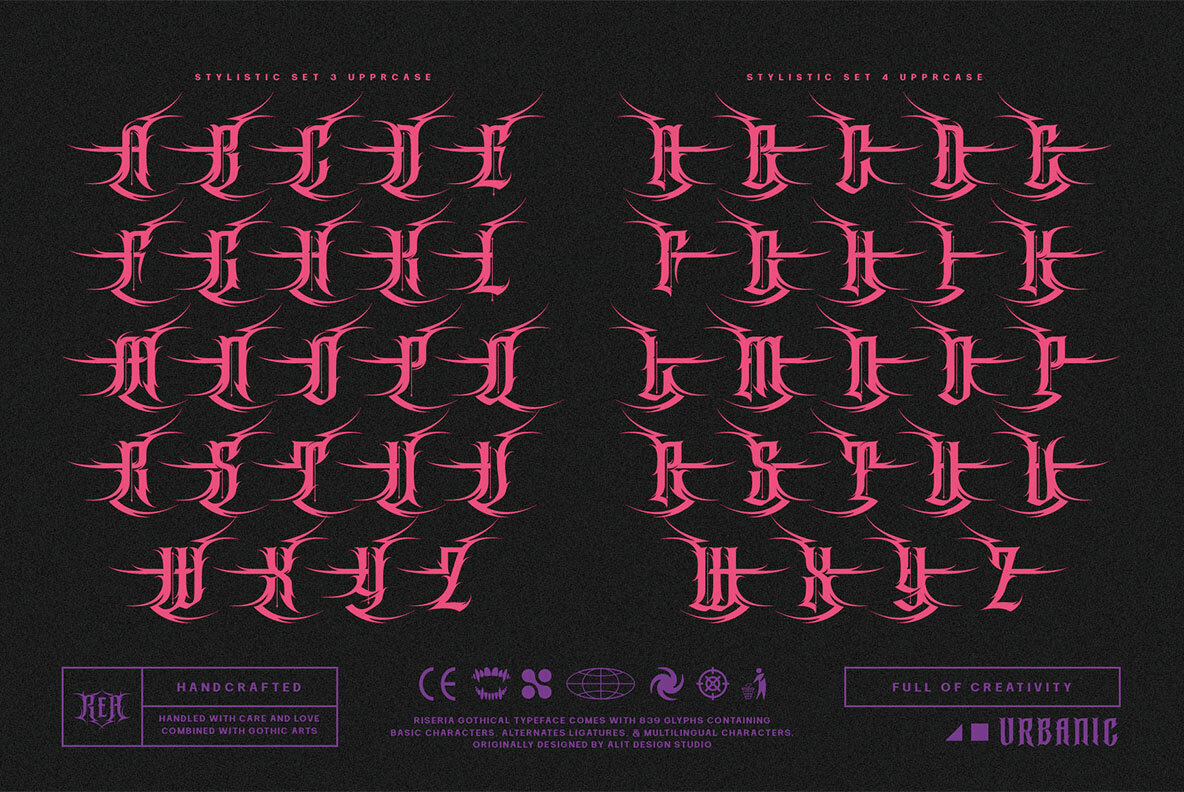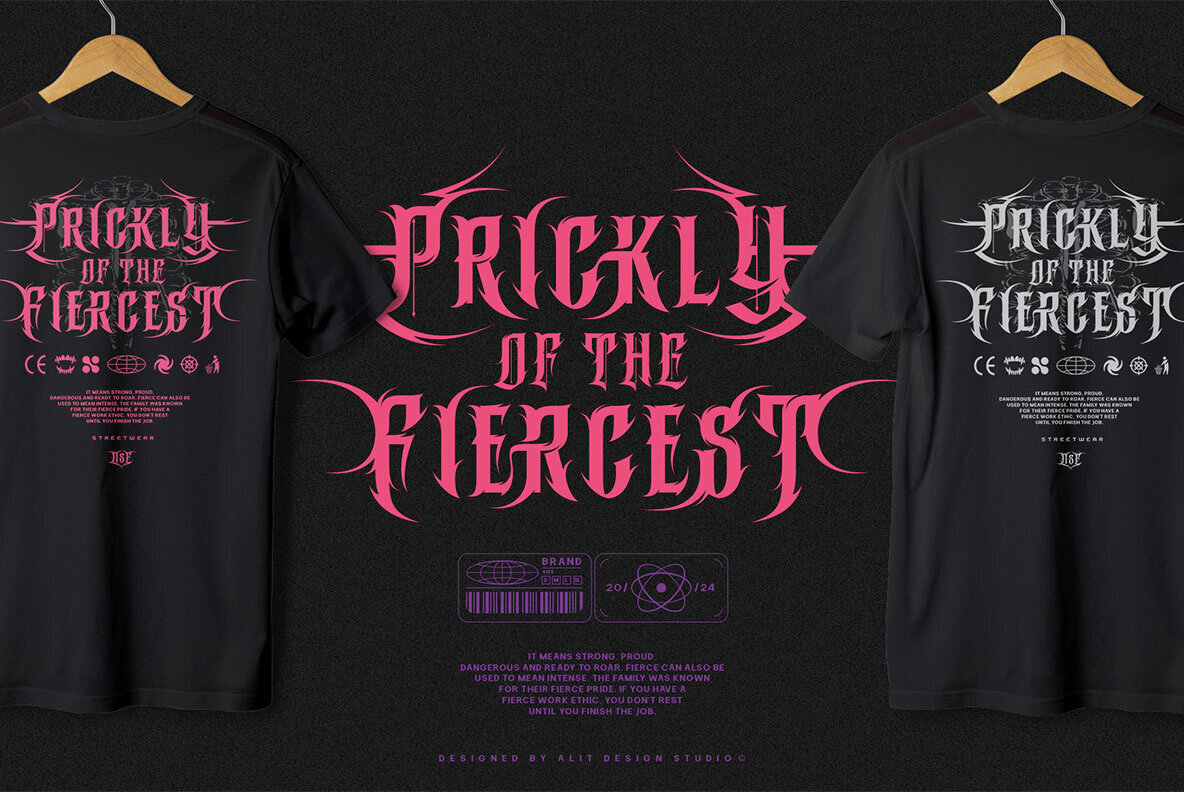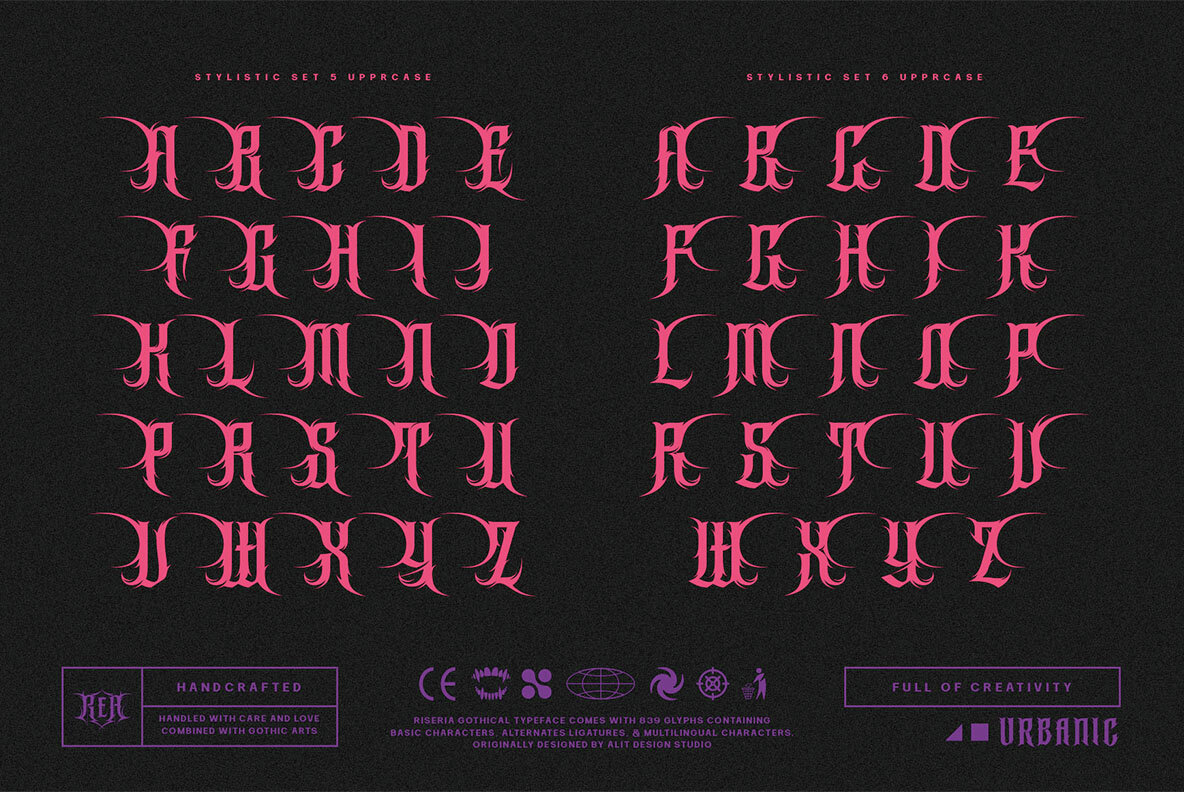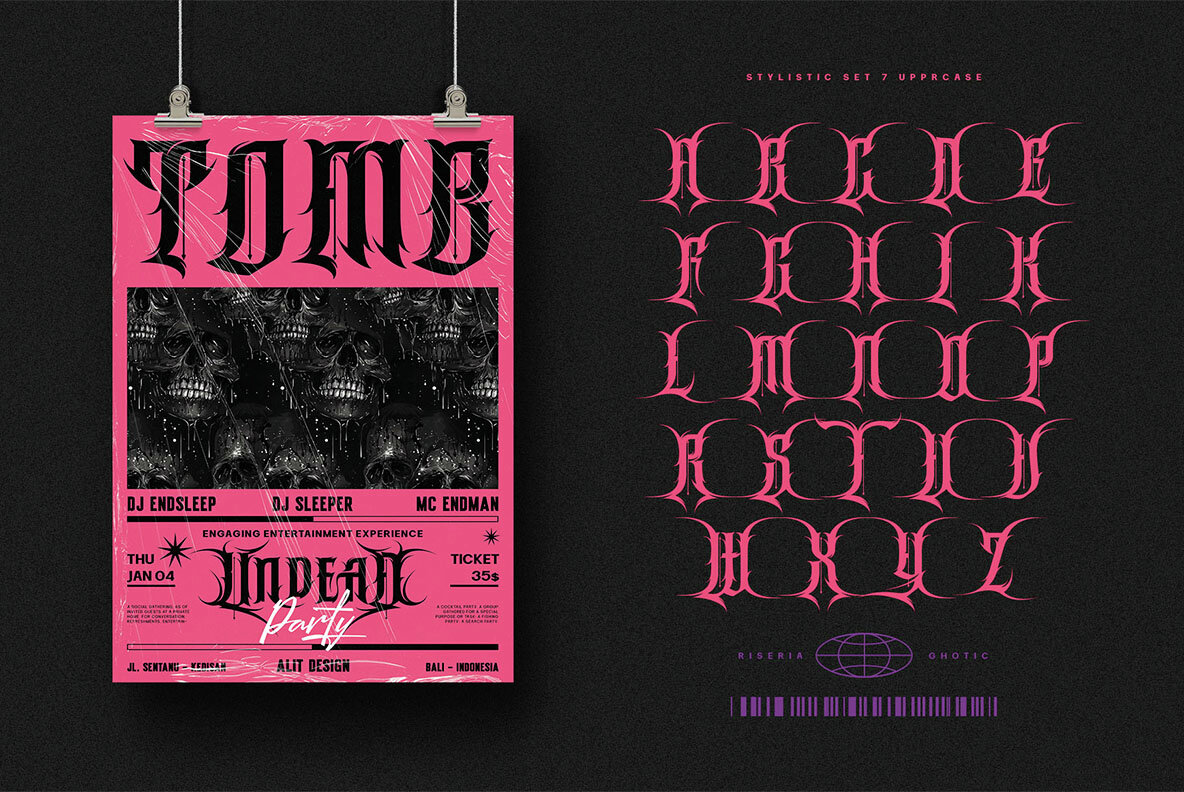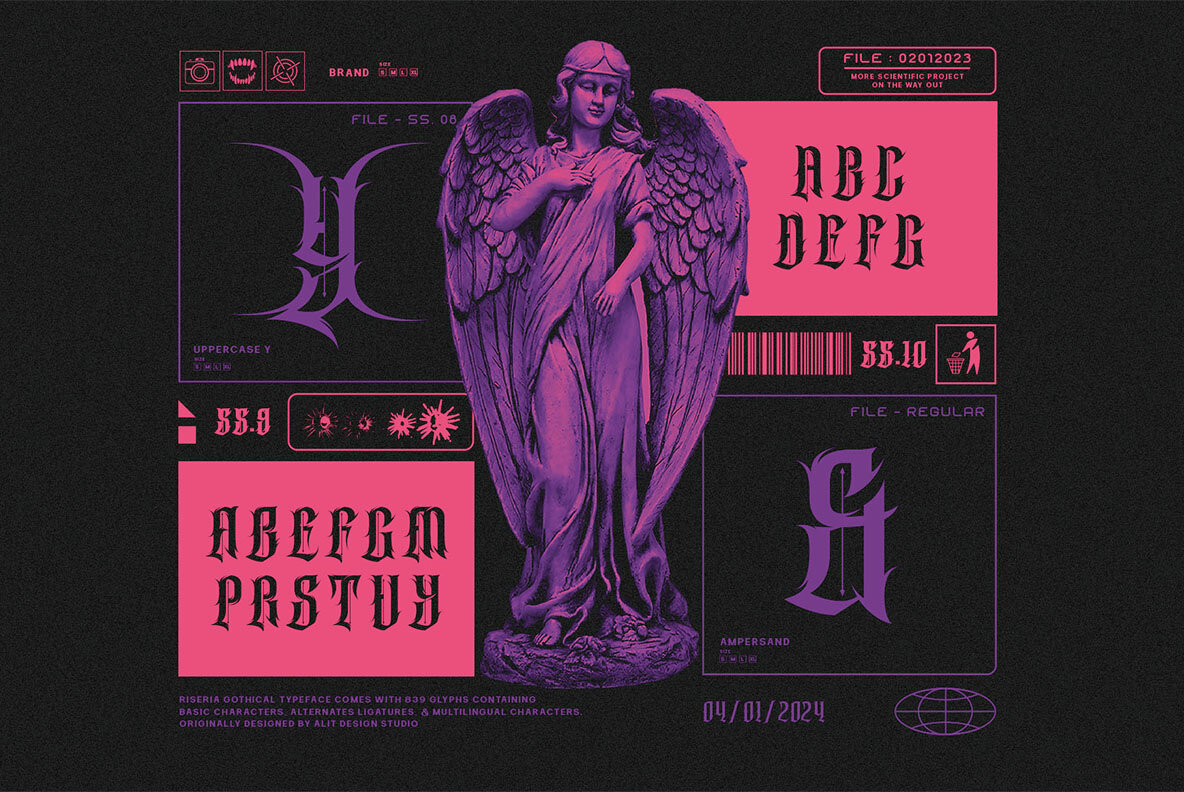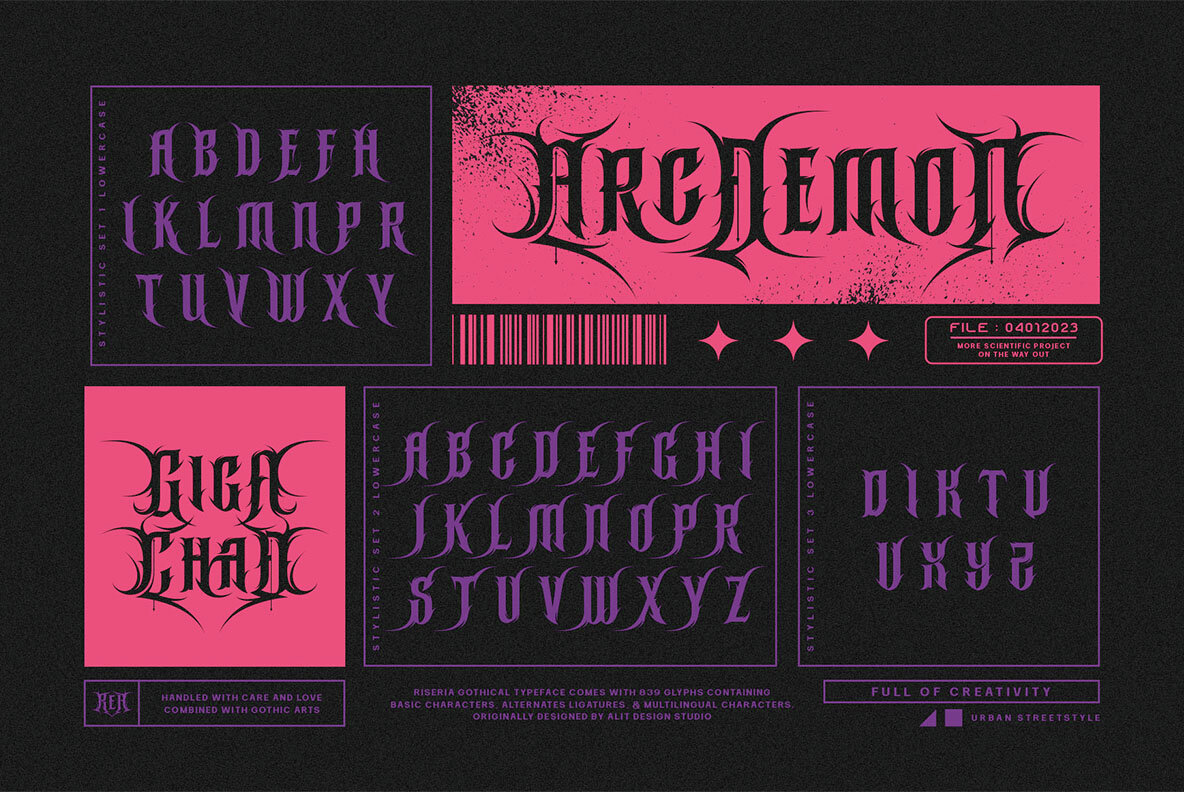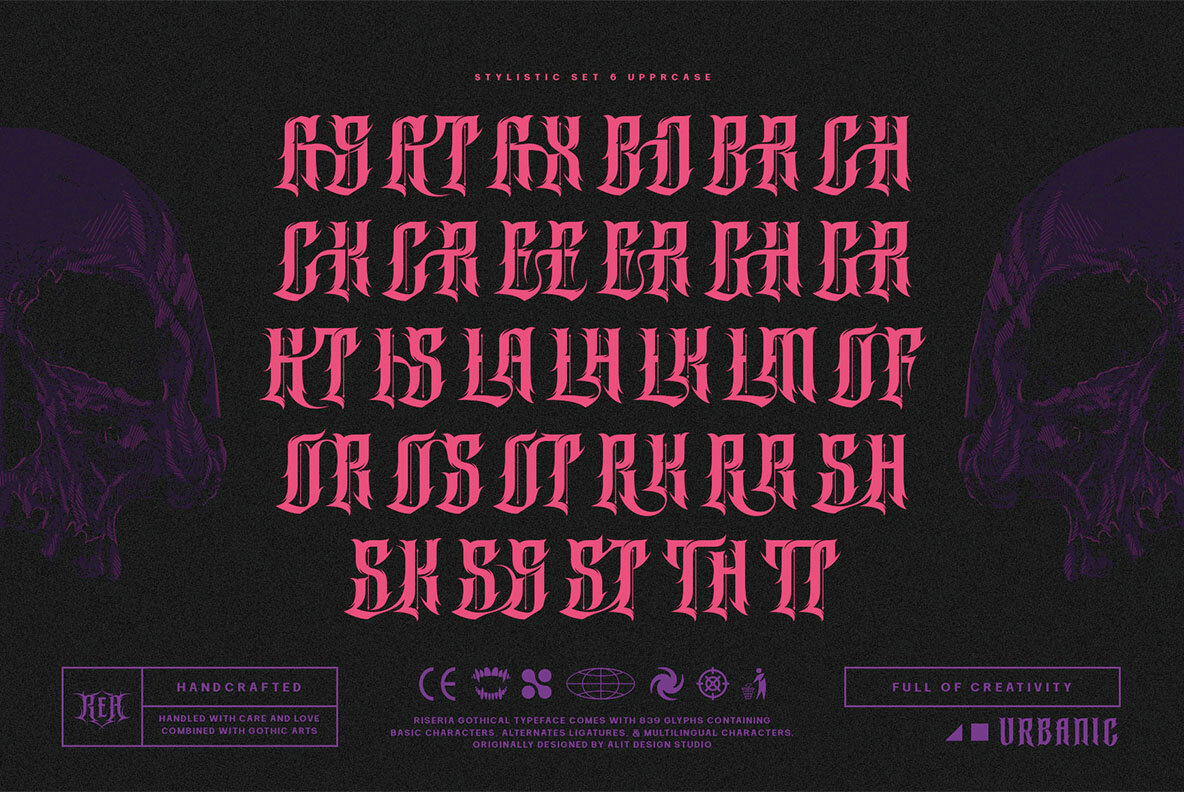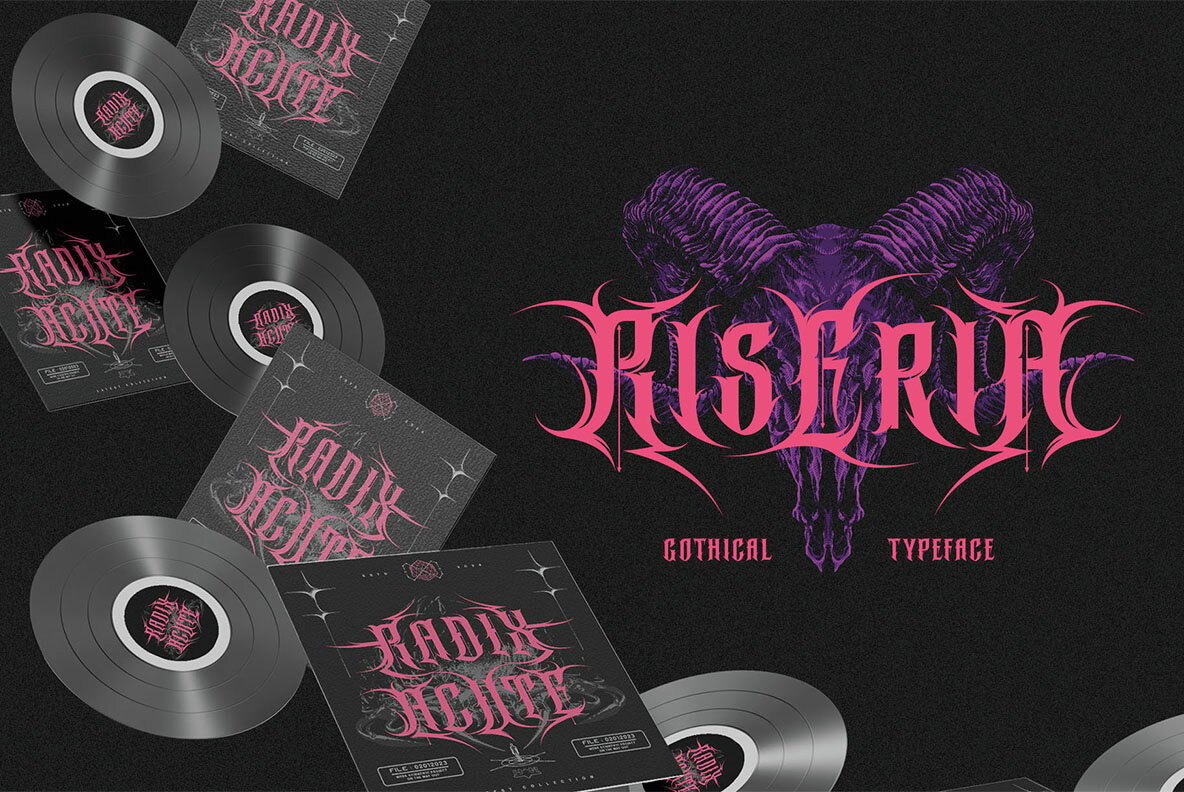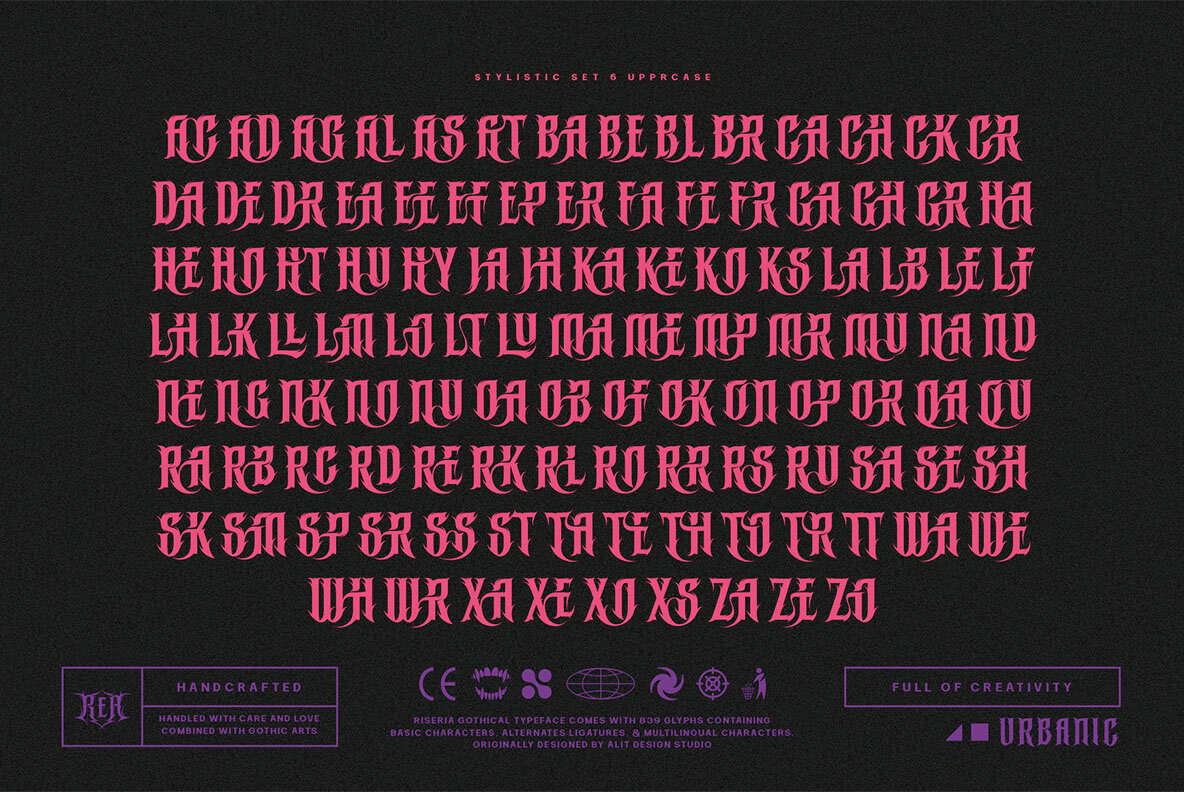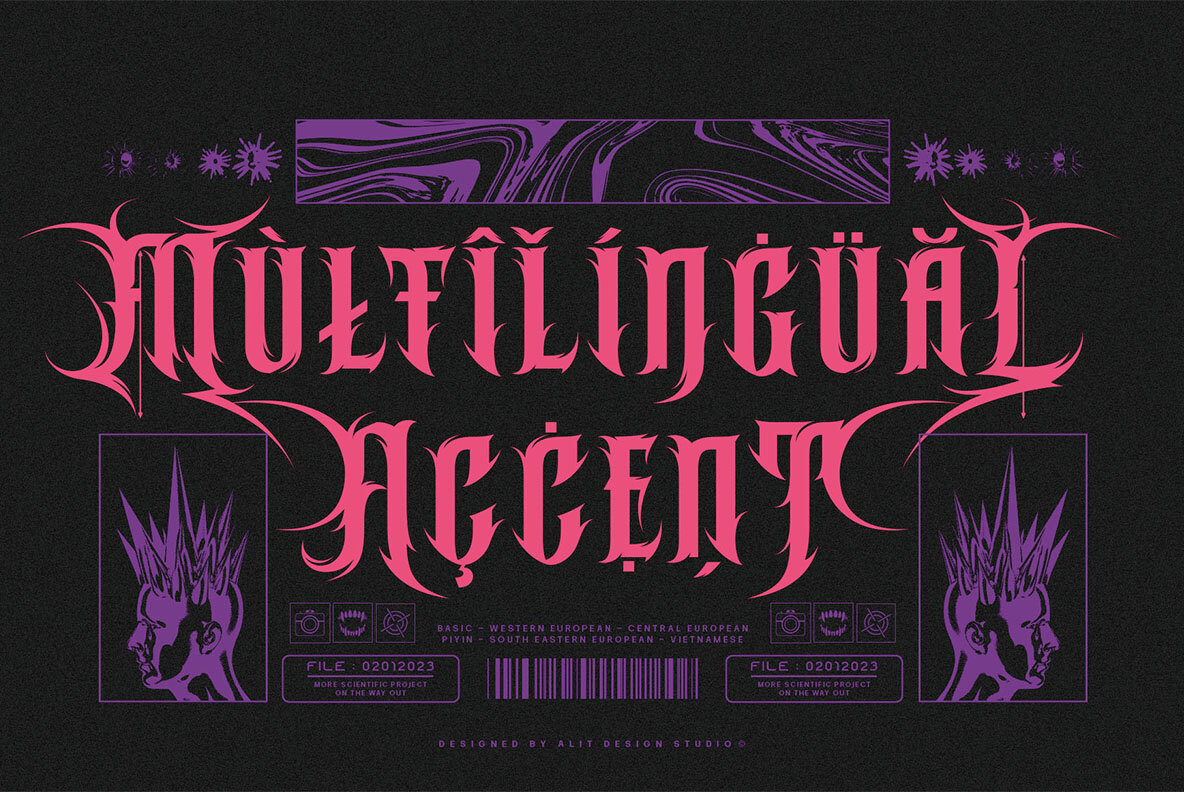
Riseria Font
Riseria Regular
Riseria is a standout typeface that merges brutalism's raw power with blackletter's intricate elegance, highlighted by haunting thorn decorations. This font embodies a unique typographic experience through a striking fusion of divergent design elements. Comprising 839 meticulously crafted characters, Riseria transcends traditional boundaries to deliver an industrial, bold aesthetic. Its design draws inspiration from the robustness of brutalist architecture and the mystique of blackletter scripts, creating a harmonious balance between strength and intricacy. This makes it an ideal choice for projects that require a powerful, visually captivating presence. One of Riseria's most distinctive features is its spine-chilling thorn decorations, which add darkness and mystique. Intricately intertwined with the characters, these adornments transform the font into an evocative design element with a mesmerizing and unsettling aura. Riseria acts as an artistic statement pushing the boundaries of conventional typography. Perfect for branding, album covers, posters, and other design projects, this font combines brutalist aesthetics, blackletter charm, and spine-tingling thorn decorations to leave an indelible mark.Riseria: A Bold Fusion of Brutalism and Blackletter
Versatile and Expressive Design
Comprehensive Features
Unique Thorn Decorations
An Artistic Statement